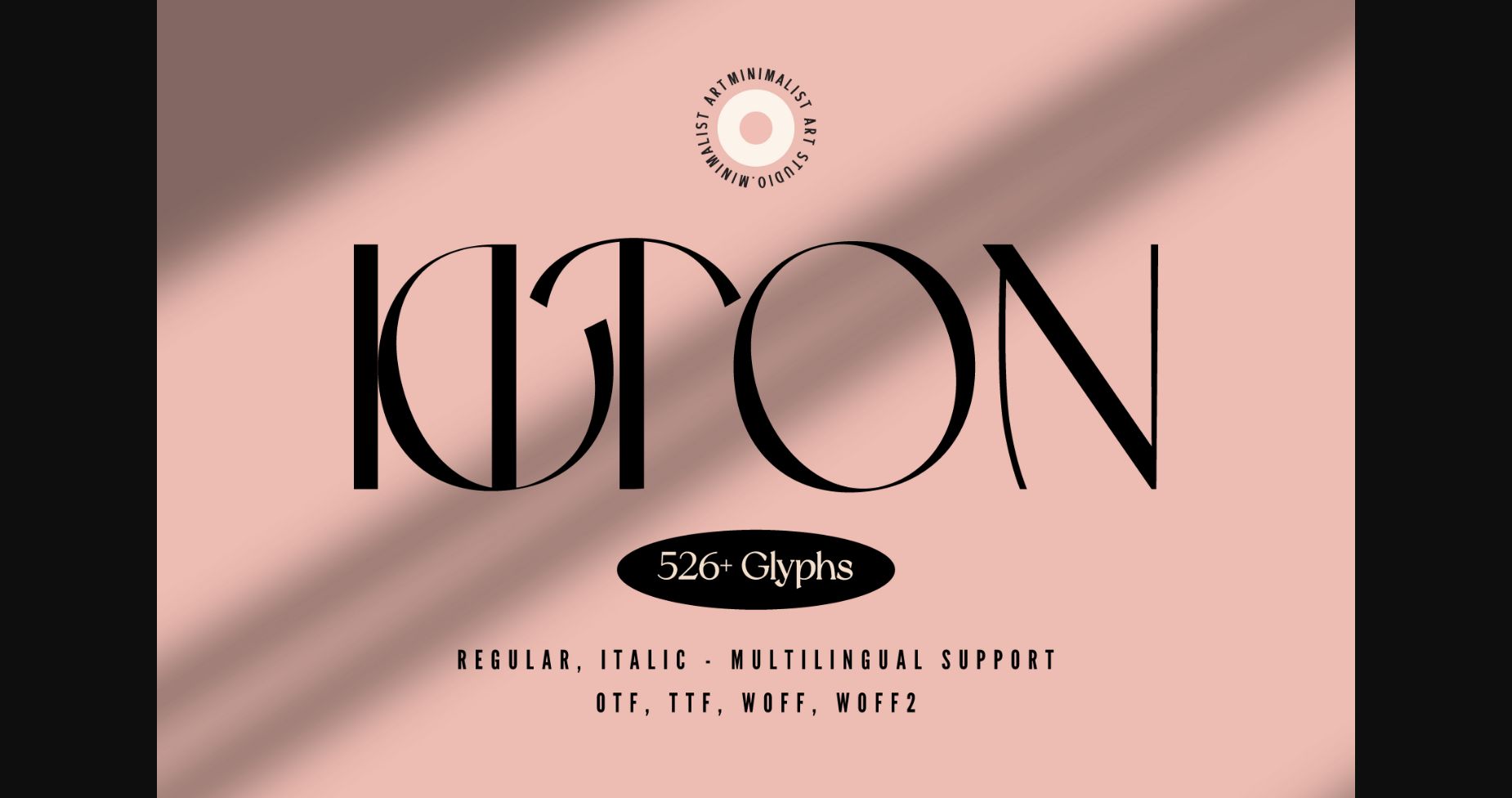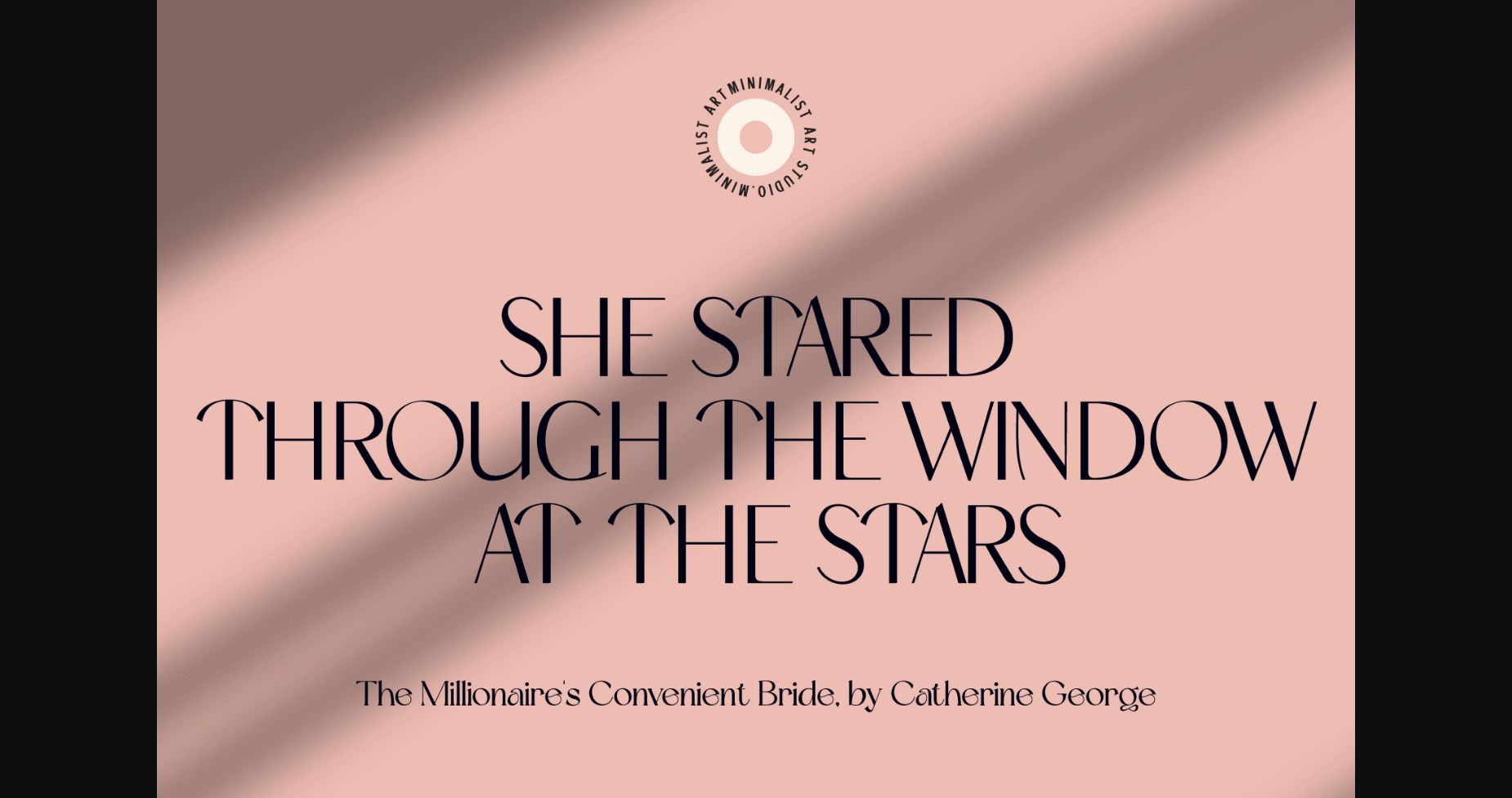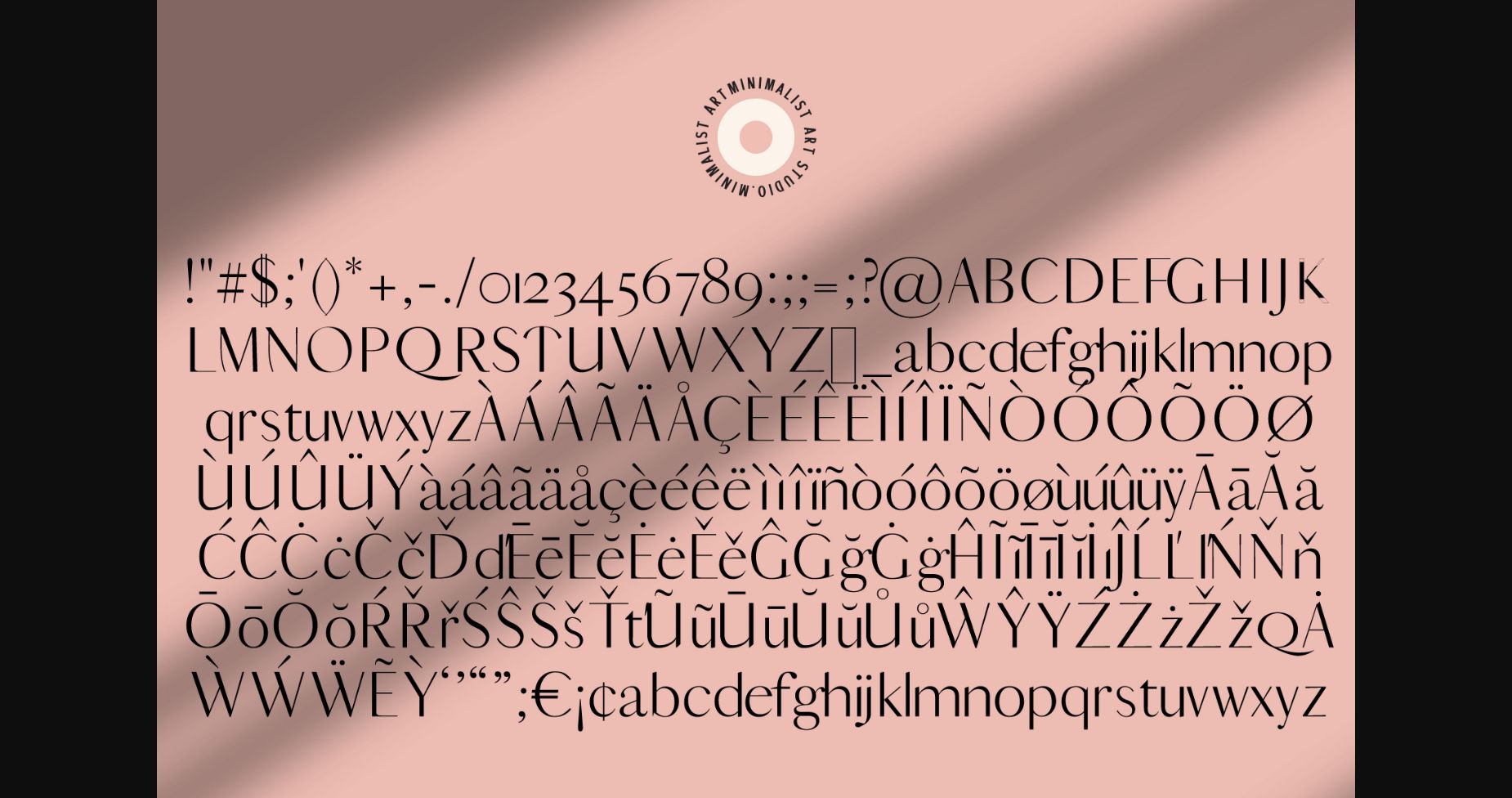
About Kiton Font
Introducing Kiton, the ultimate sans-serif typeface for the modern minimalist. With its sleek and elegant design, Kiton is the perfect choice for anyone looking to add a touch of sophistication and style to their project.
Crafted with utmost care and attention to detail, Kiton features clean lines, smooth curves, and a timeless aesthetic that exudes confidence and refinement. Whether you’re designing a website, creating a logo, or crafting a piece of editorial content, Kiton’s versatility and sophistication will elevate your work to new heights.